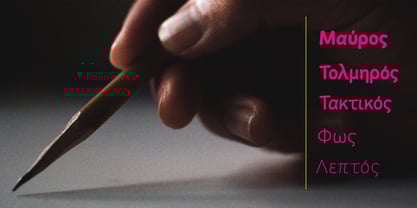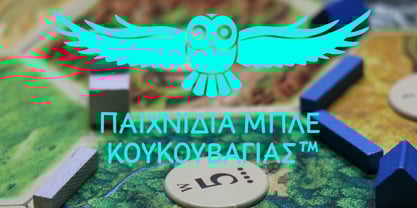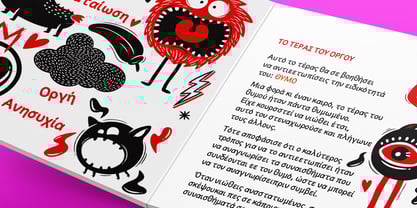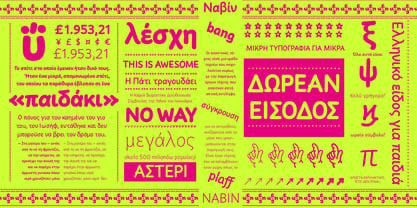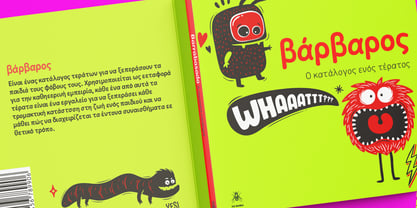
Nawin Grk
by Letterjuice
The Nawin Grk Font Family was designed by Pilar Cano, Ferran Milan and published by Letterjuice. Nawin Grk contains 5 styles and family package options. More about this family
Nawin is an informal typeface inspired by handwriting. The idea behind this design is to create a type family attractive and ownable for children but at the same time a design that keeps excellent letter recognition for reading. Handwriting has been a great source of inspiration in this particular typeface. By emulating the movements of the pen, we have obtained letter shapes that express spontaneity. A bright group of letters create a lively and beautiful paragraph of text.
To get closer to handwriting and the variety of letter shapes that we draw while writing, this typeface offers a large number of alternative characters, which differ slightly from the default ones. Because we have programed the «Contextual Alternate» feature in the fonts, these alternate characters appear automatically as you set a text.
A part from having an entire alternate basic alphabet, there are also different letterforms for characters with diacritics, this way variability becomes even greater. Nawin is quirky and elegant at the same time.